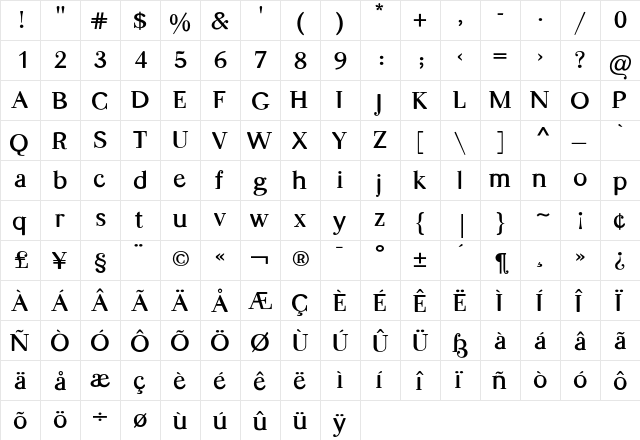
Leash Fat
Design Context for Leash Typeface
Leash offers clean, dependable letterforms without strong stylistic allegiance, making it a practical choice for designers who need flexibility.